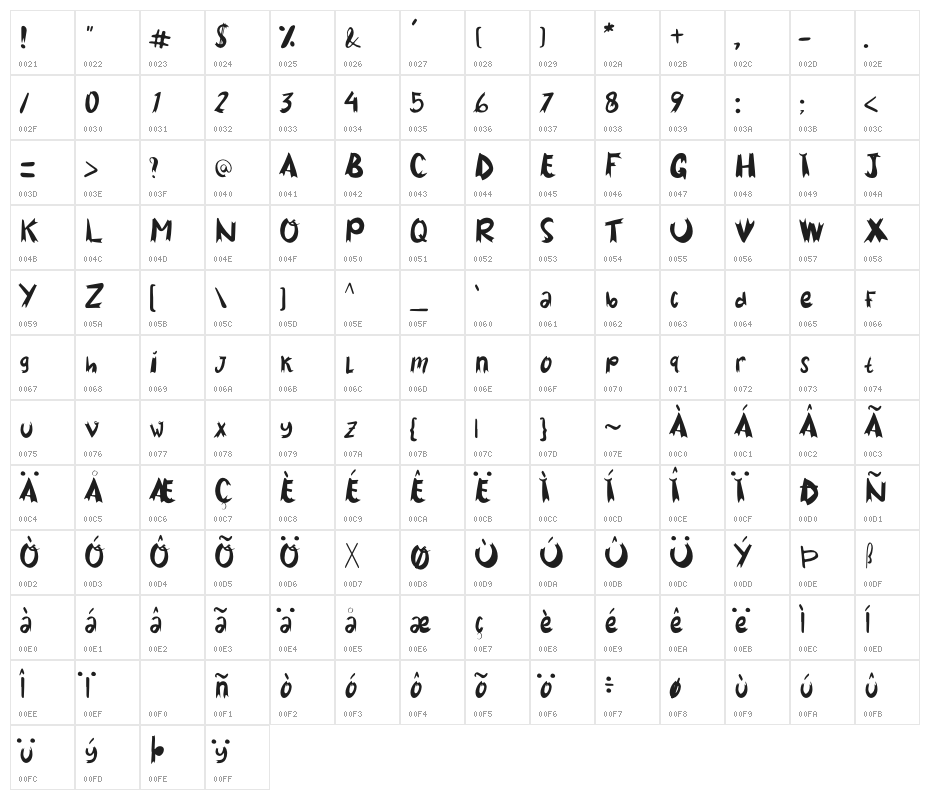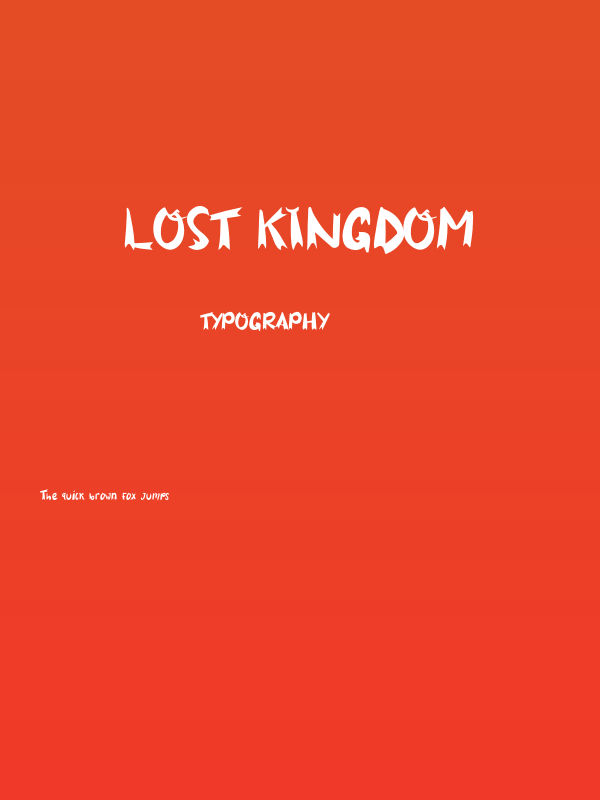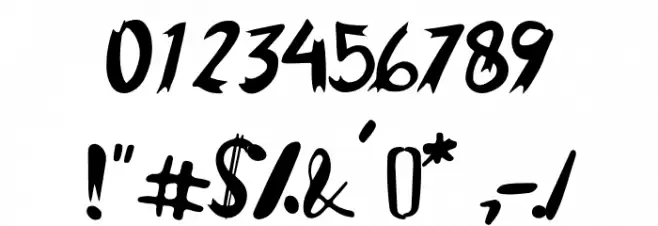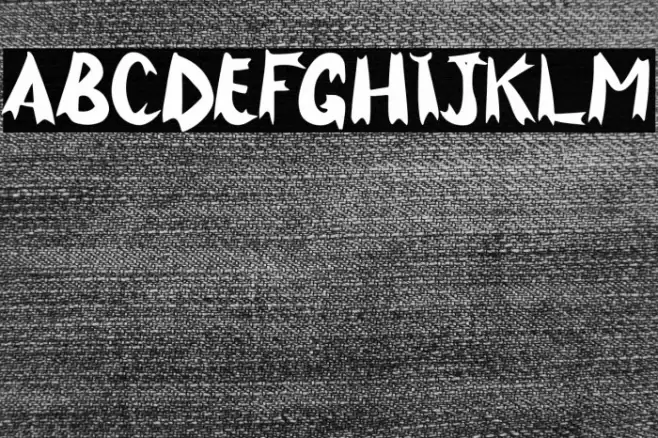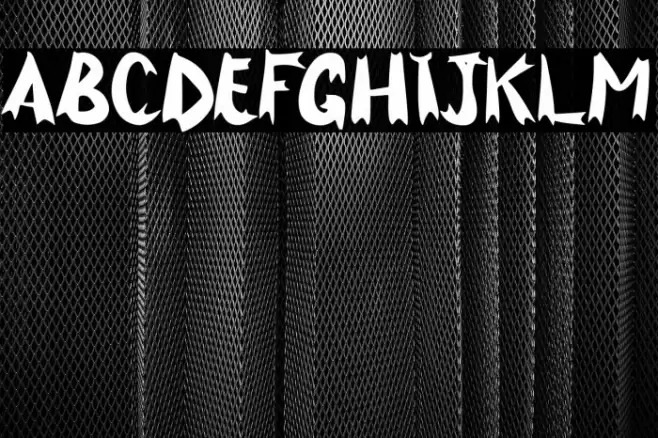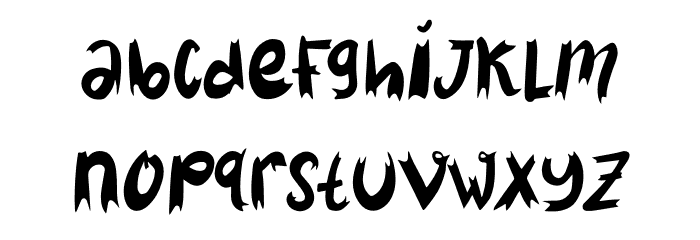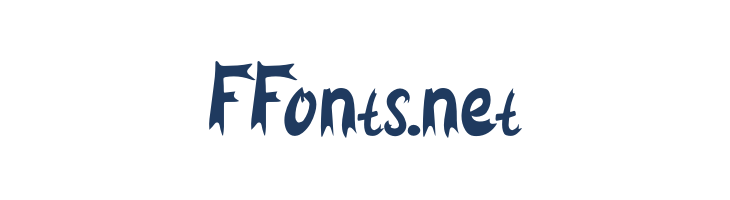
Lost Kingdom Font
This font exudes a bold and adventurous spirit, characterized by its jagged and dynamic letterforms. The uppercase letters are particularly striking, with sharp edges and a sense of movement that suggests action and energy. The lowercase letters maintain this theme, offering a slightly more subdued but still lively appearance. Numbers and special characters follow suit, ensuring a cohesive look across all elements. The overall style is reminiscent of ancient scripts or fantasy themes, making it ideal for projects that require a touch of mystery or excitement. The font's unique design is perfect for capturing attention and conveying a sense of drama.